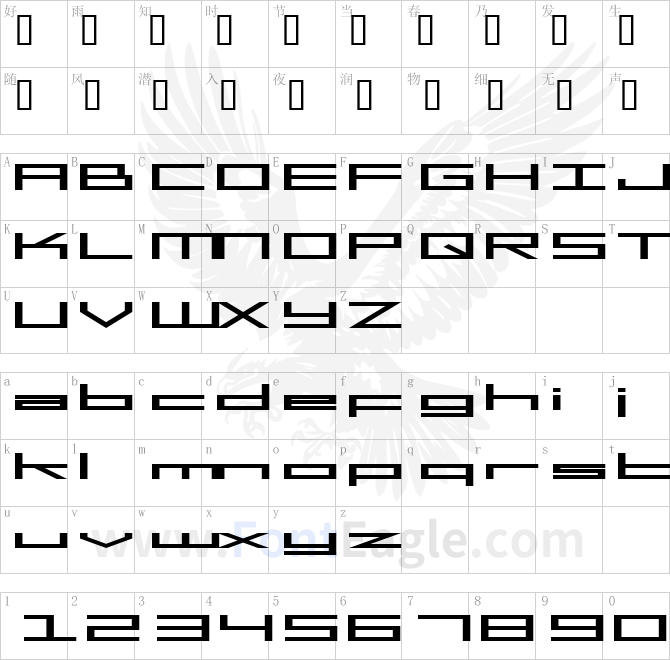
- Font name:SF Square Head Extended
- Font Subfamily ID:SF Square Head Extended
- Font Full Name:SF Square Head Extended
- Postscript:SFSquareHeadExtended